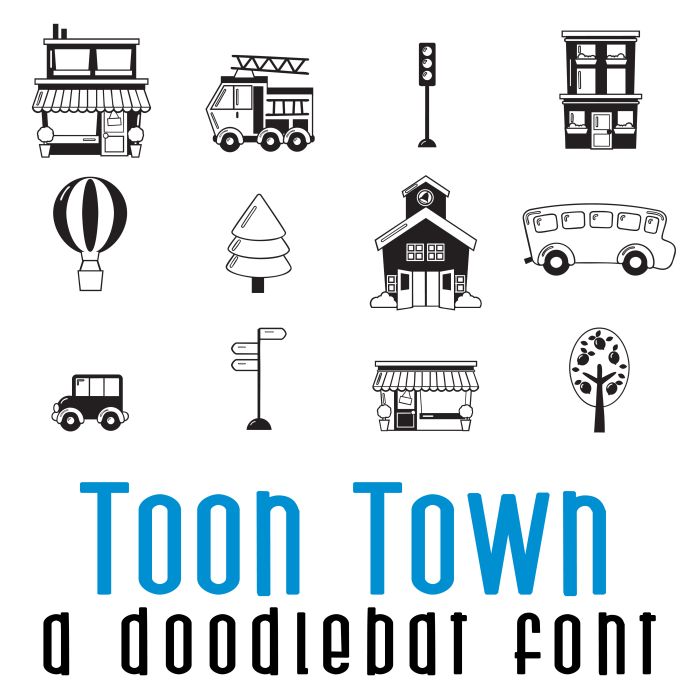
This fun doodlebat font features 26 toon town images perfect for cards, crafts, gifts, parties, planner stickers, classrooms, decor, scrap book pages and more!